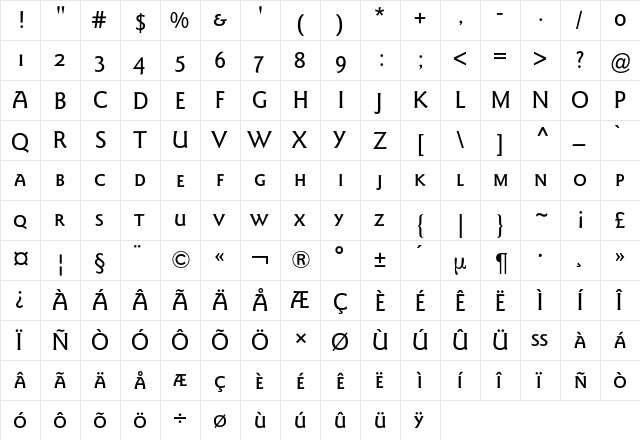
Goudy Sans Expert BQ Regular Font Preview
Goudy Sans Expert BQ Regular
Design Context for Goudy Sans Expert BQ Typeface
Goudy Sans Expert BQ is a composed and adaptable typeface that performs quietly and consistently across a wide range of design contexts.